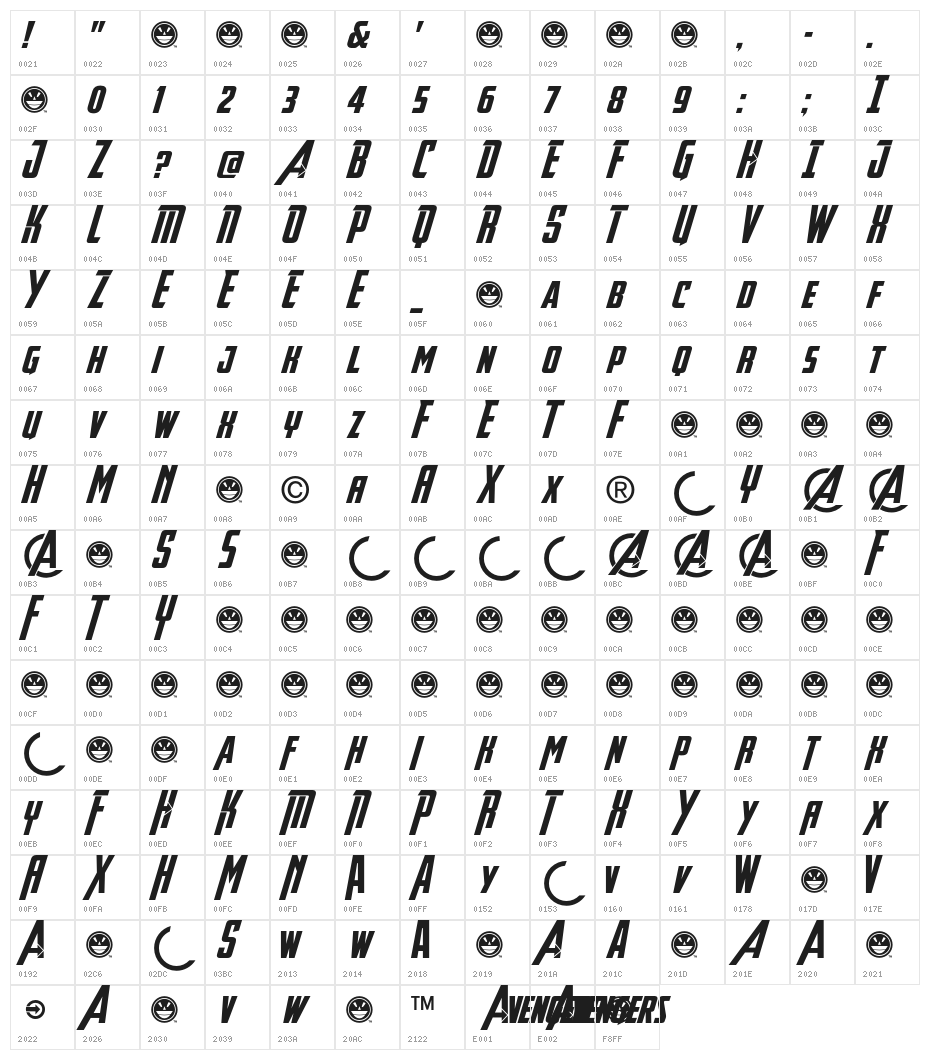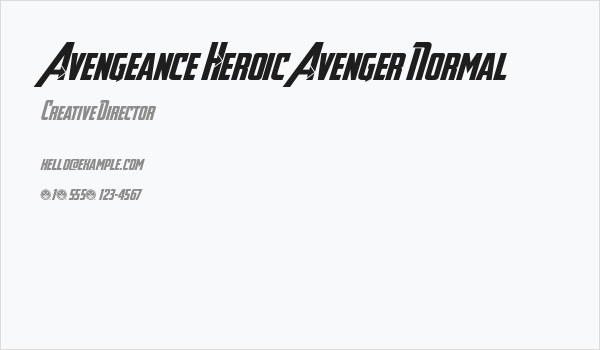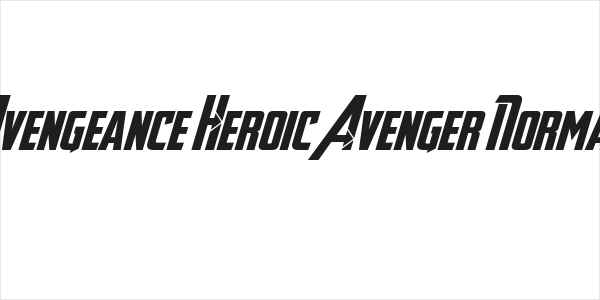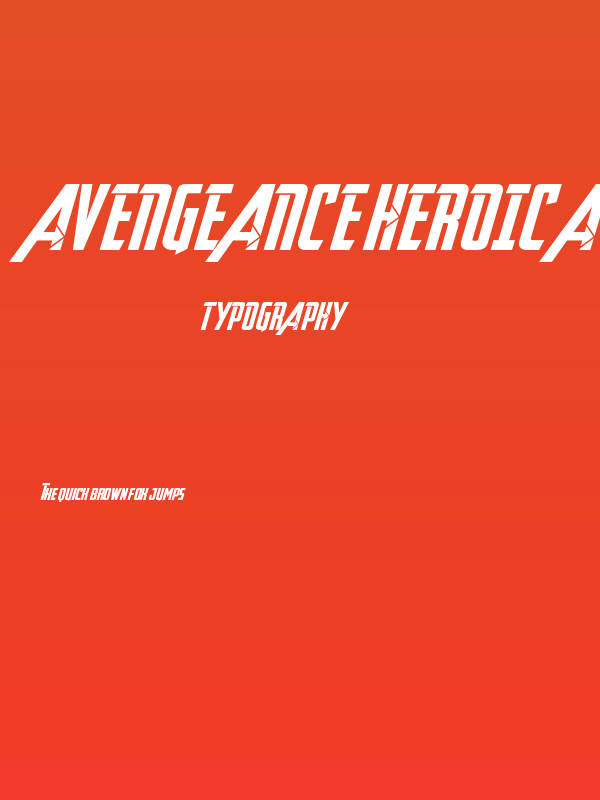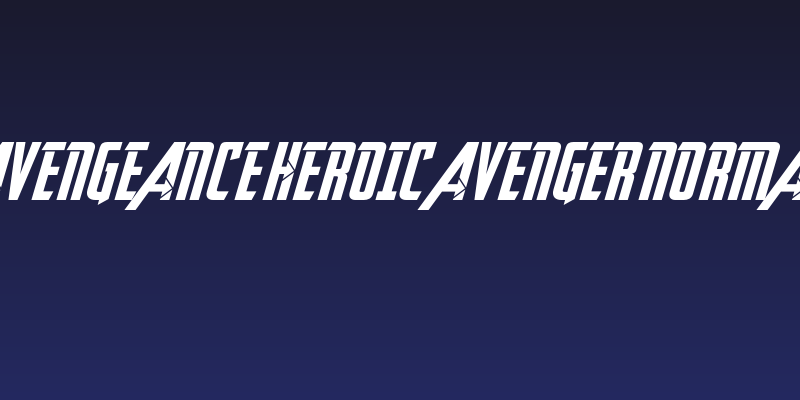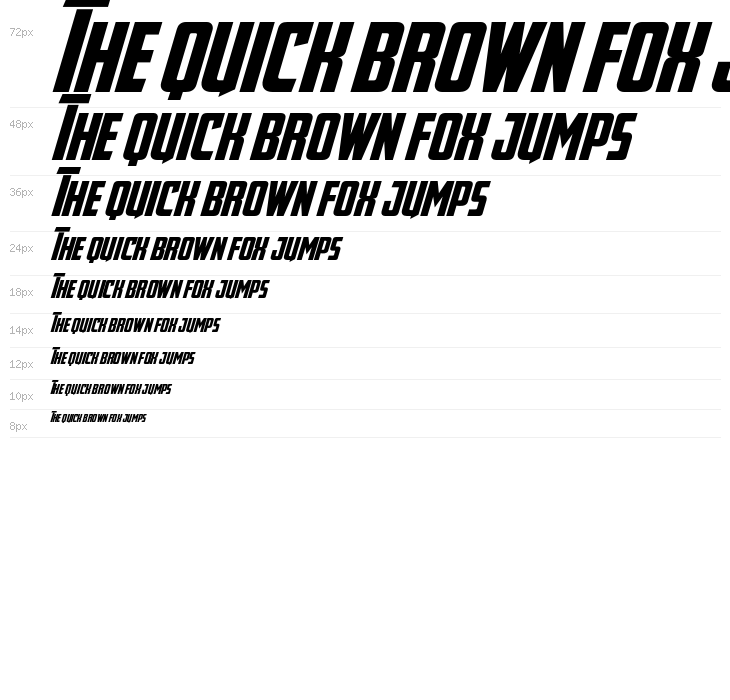
Avengeance Heroic Avenger Normal Font
Avengeance Heroic Avenger Normal Description
This font features a bold and dynamic style with a strong presence, characterized by its sharp angles and geometric forms. The uppercase letters are particularly striking, with a forward-leaning stance that conveys a sense of motion and energy. The lowercase letters maintain this dynamic quality, ensuring consistency across the typeface. Numbers are equally bold, making them stand out effectively. Special characters are designed to match the overall aesthetic, adding to the font's cohesive look. The font's design is reminiscent of superhero themes, making it ideal for projects that require a powerful and impactful visual statement.
| Proposed Projects | Ideal for comic book covers, movie posters, video game titles, and branding for action-oriented products. |